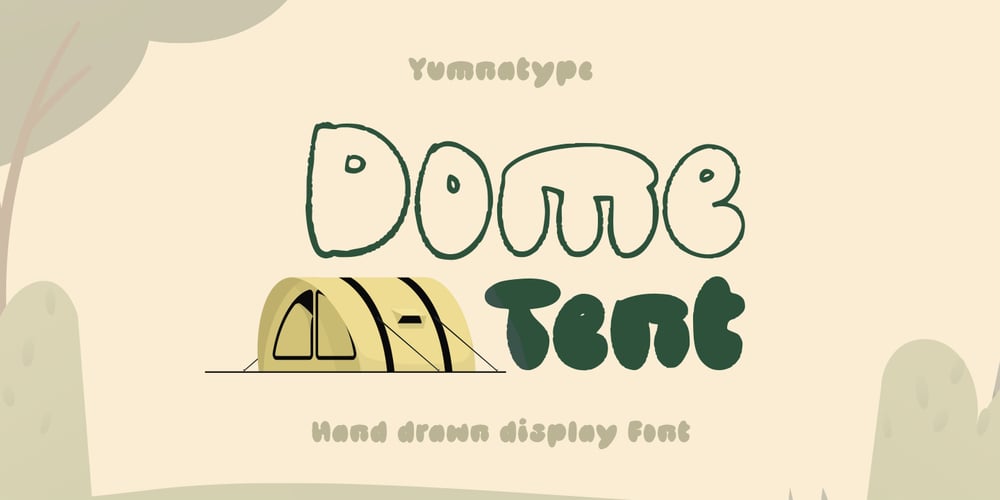
Dome Tent Font Family was designed by Donis Miftahudin and published by Yumna Type. Dome Tent contains 2 styles and family package options. Step into the whimsical world of Dome Tent, a hand-drawn display font that invites you to embrace adventure and fun. Each letter in Dome Tent is lovingly drawn with rounded shapes that add a sense of warmth and friendliness to your text. The very thick weight of the font gives it a bold and robust presence. Additionally, the uneven outline adds an extra layer of quirkiness and character to the font, adding to its unique charm. What sets Dome Tent apart is its ability to convey a sense of joy and adventure. In addition, enjoy the features here.Features: Multilingual Supports PUA Encoded Numerals and Punctuations Dome Tent fits in headlines, logos, posters, flyers, branding materials, print media, editorial layouts, and many more designs. Find out more ways to use this font by taking a look at the font preview.Thanks for purchasing our fonts. Hopefully, you have a great time using our font. Feel free to contact us anytime for further information or when you have trouble with the font. Thanks a lot and happy designing.